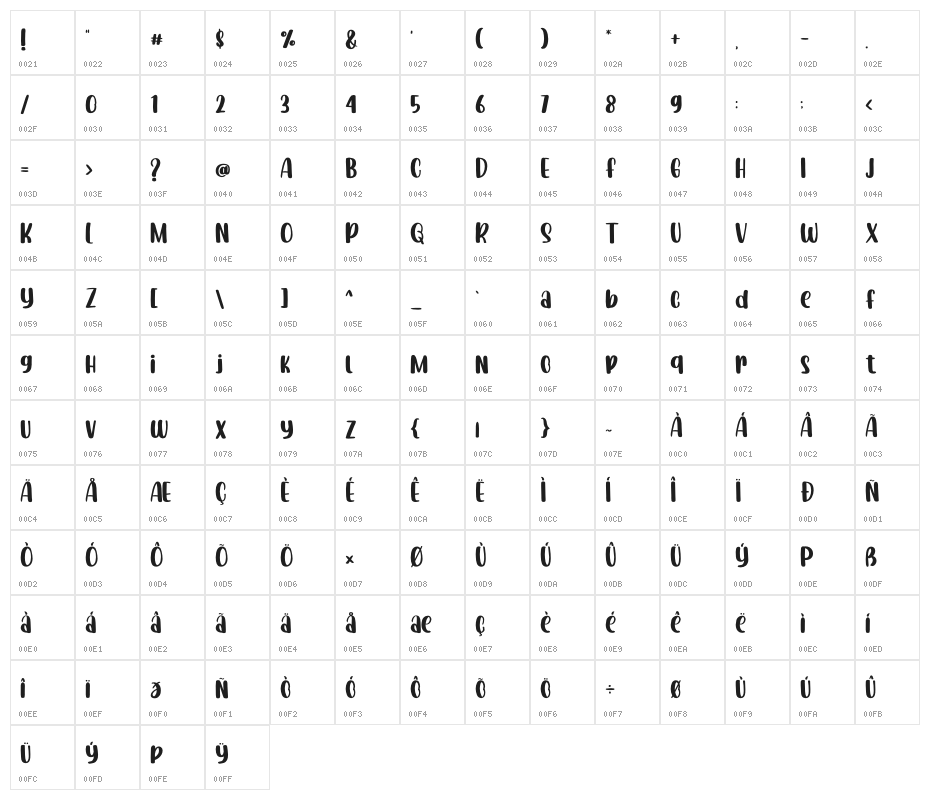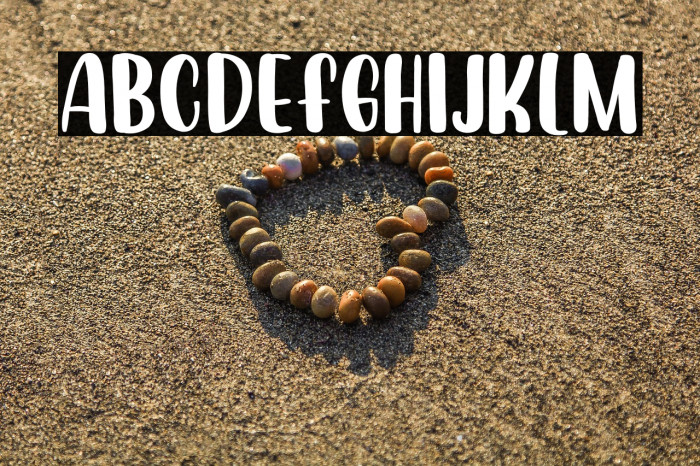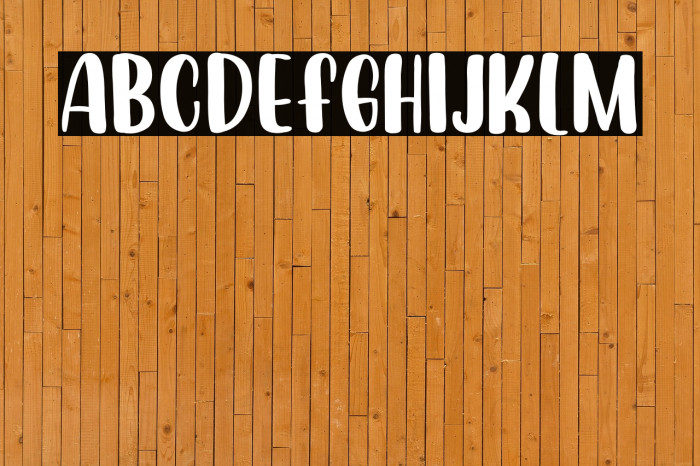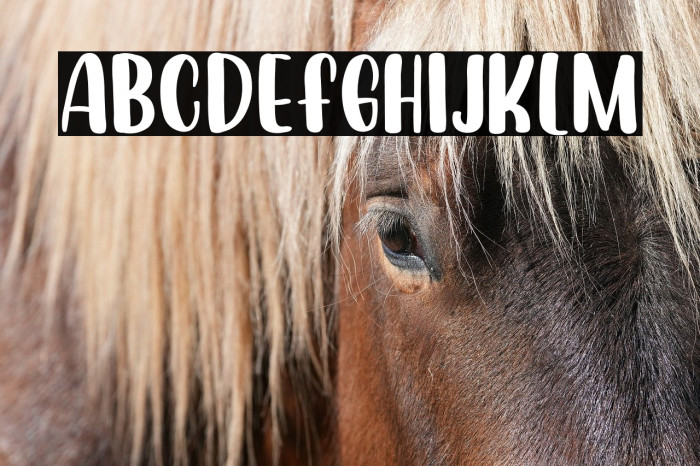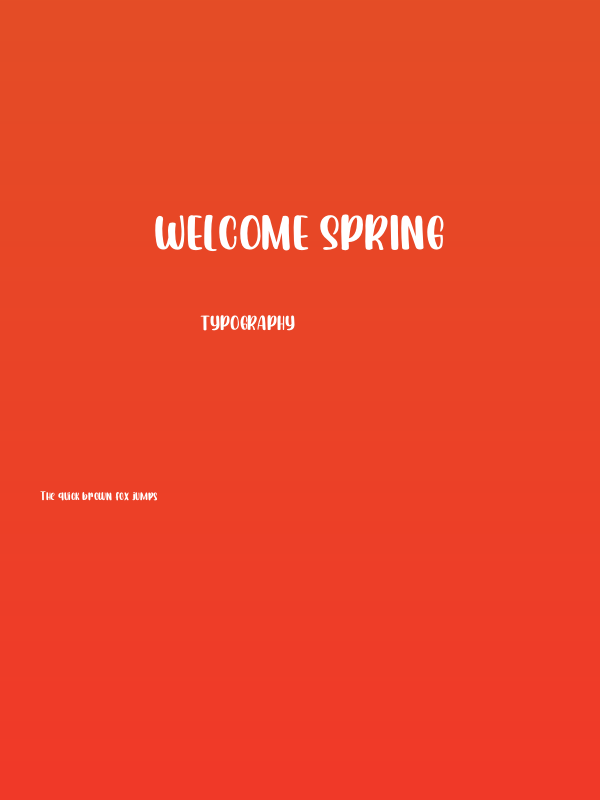
Welcome Spring Font
Welcome Spring Description
This font features a playful and bold style with rounded edges and a hand-drawn appearance. The letters are thick and slightly irregular, giving them a casual and friendly look. The uppercase and lowercase characters maintain a consistent weight, while the numerals and special characters complement the overall design. The font's whimsical nature makes it suitable for projects that require a touch of fun and creativity. Its boldness ensures readability while adding a unique flair to any text.
| Overall Style | Playful |
| Use Case | Logos, Headlines, Posters |
| Proposed Projects | Ideal for greeting cards, children's books, playful branding, and social media graphics. |